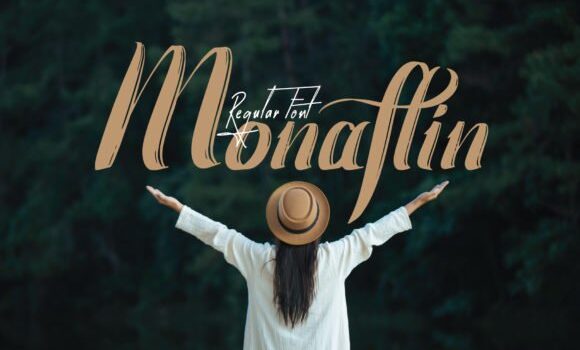
monaflin
Monaflin Font – Free Download Introduction to Monaflin Font Monaflin is a beautiful and authentic display font with a unique feel. 📸 Preview Gallery 6 images 📌 Product Name Monaflin Font 👤 Author eSSeGraphic 📂 Category Explore ⬇️ Download Monaflin